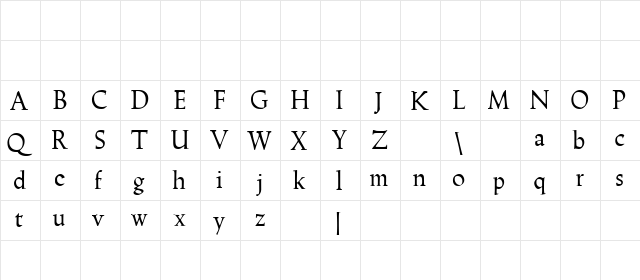
Hadrianus Demo Regular
Design Context for Hadrianus Demo Typeface
Hadrianus Demo takes a measured approach to typography — its balanced proportions and neutral character make it a reliable workhorse for both digital and print work.